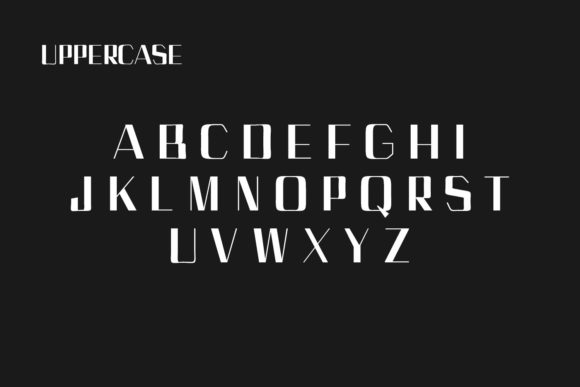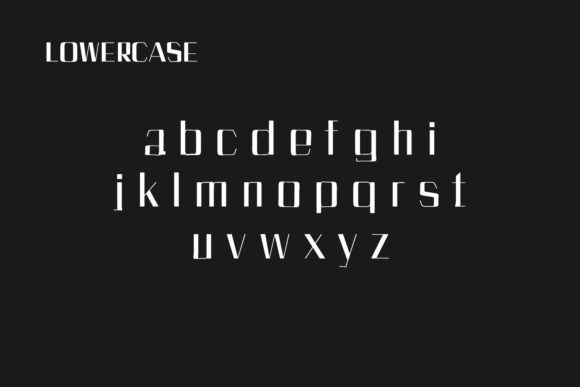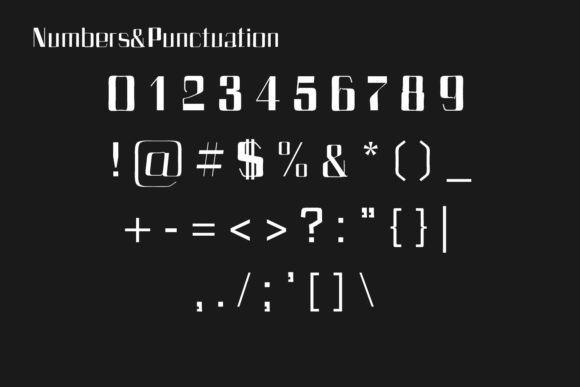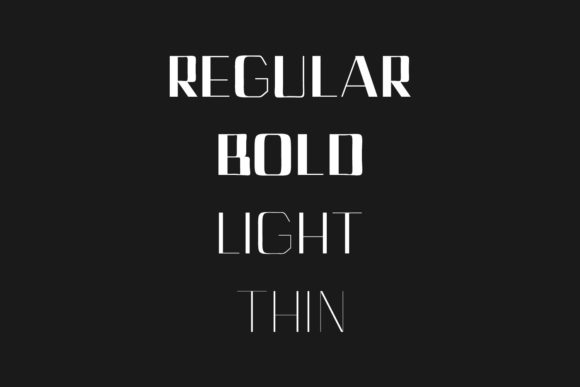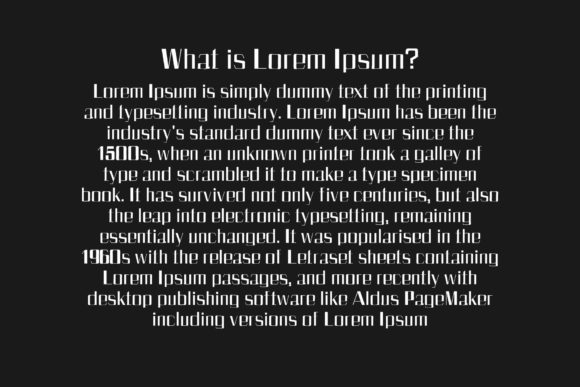
The Perfect Font for the Daring Designer
Have you ever been working on a project, pouring your heart and soul into it, and then – BAM! – you need the perfect font to bring it all together? I’m sure many designers can relate to that moment of frustration and excitement when you finally find the one font that makes everything click.
That’s exactly what I felt when I discovered the Bethan Family Font – a cool, modern, and almost robotic sans serif font family that’s perfect for daring projects that need to stand out and impress. With its sleek lines and futuristic feel, the Bethan Family Font is a valuable addition to any designer’s toolkit, offering a unique way to add some edginess to your designs.
Whether you’re a seasoned pro or just starting out, the Bethan Family Font is a great choice for anyone looking to take their designs to the next level.
Bethan Family Font Key Features
- Font Family: Bethan Family is a sans-serif font family designed for various digital applications.
- Character Set: Supports a wide range of languages, including Latin, Cyrillic, and Greek scripts, making it suitable for multilingual projects.
- Size and Resolution: Designed to be highly legible at various font sizes (8-48 points) and resolutions (72-300 dpi), ensuring readability on both desktop and mobile devices.
- Unique Characteristics: Features a distinctive, modern aesthetic with clean lines, geometric shapes, and a subtle rounded edge, making it perfect for corporate branding and digital interfaces.
- Font Weight and Style: Available in multiple weights (Light, Regular, Medium, Bold, Extra Bold) and styles (Italic, Oblique), allowing for versatile typography and creative expression.
Bethan Family Font Review
Overall, I have mixed feelings about the Bethan Family Font. On one hand, it has its strengths that make it a viable option for certain design projects. ✨ For instance, the font’s friendly and approachable nature makes it suitable for use in children’s books, magazines, and other materials targeting a younger audience. The font also has a nice balance of elegance and playfulness, which can be appealing to designers looking for a versatile font.
However, there are some limitations that may prevent me from recommending the font for more complex or high-end projects. ⚠️ Here are a few concerns:
- Limited character set: The font lacks a comprehensive character set, which may cause issues for designers working with non-English languages or requiring specific symbols.
- Some characters may appear inconsistent: I’ve noticed that certain characters, such as the ‘a’ and ‘c’, can appear slightly irregular, which may detract from the overall design.
- Not ideal for small font sizes: At smaller font sizes, the font can become blurry and difficult to read, which may not be suitable for use in situations where text needs to be displayed at a small scale.
Overall, while the Bethan Family Font has its strengths, its limitations may make it less suitable for more complex or high-end projects. It’s still a solid option for designers working on projects that require a friendly, approachable font.
Tips for Getting the Most Out of the Bethan Family Font
Use the Bethan Family Font in headings and titles to create a clear and consistent visual hierarchy.
Use the font in body text to create a cohesive and professional look.
Experiment with different font sizes and styles to add emphasis and visual interest.
The Bethan Family Font is suitable for a wide range of designs, including:
– Business cards
– Brochures
– Posters
– Infographics
– Presentations
Alternatives to Bethan Family Font
Merrriweather is a classic serif font, ideal for body text and formal documents. It has a traditional look and feel, making it suitable for books, newspapers, and academic papers.
Comparison to Bethan Family Font: While Bethan Family Font has a more modern feel, Merriweather offers a timeless look that works well in a variety of contexts. Bethan Family Font is more versatile, but Merriweather is a better choice when a traditional, classic look is desired.
For optimal readability, we recommend using a font size between 12-14 points for body text, with a line height of at least 1.2-1.5 times the font size. This will help ensure that the text is clear and easy to read, even at smaller font sizes.
Are there any specific font pairing recommendations for the Bethan Family Font?
Yes, we recommend pairing the Bethan Family Font with a clean, sans-serif font such as Open Sans or Lato for headings and titles. This will create a balanced and harmonious typography that is easy to read and visually appealing.